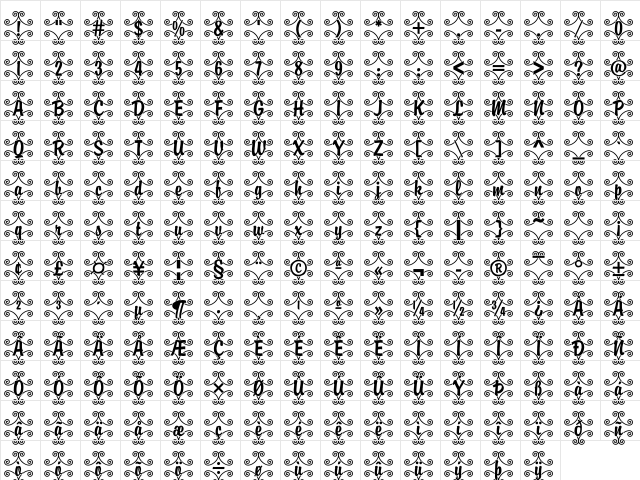
Complete Brody46 Becker Regular glyph index. Displaying only characters natively supported by Brody46 Becker Regular font.
Brody46 Becker is a composed and adaptable typeface that performs quietly and consistently across a wide range of design contexts.